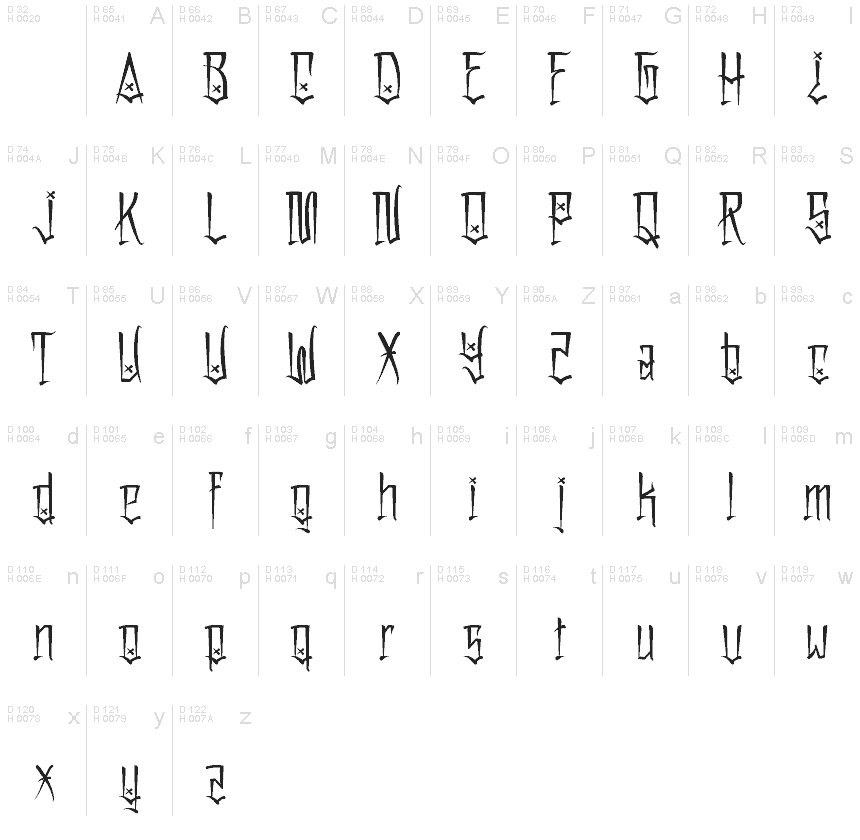
CS Emperor Regular Demo
CS Emperor font by Craft Supply Co. combines gothic-inspired, medieval aesthetics with modern-day design requirements. This light brush font mixes ornate details, a unique character theme, and an authoritative feel through its condensed width text that plays perfectly into any formal or informal design. Create an unusual composition using these historical influence characters in your personal and professional projects.
Decorative elements included make the CS Emperor font versatile when used for branding along with business cards, product packaging designs, magazines and editorial headlines, website titles, book covers, logos for classic furniture stores or historic landmarks/museums.